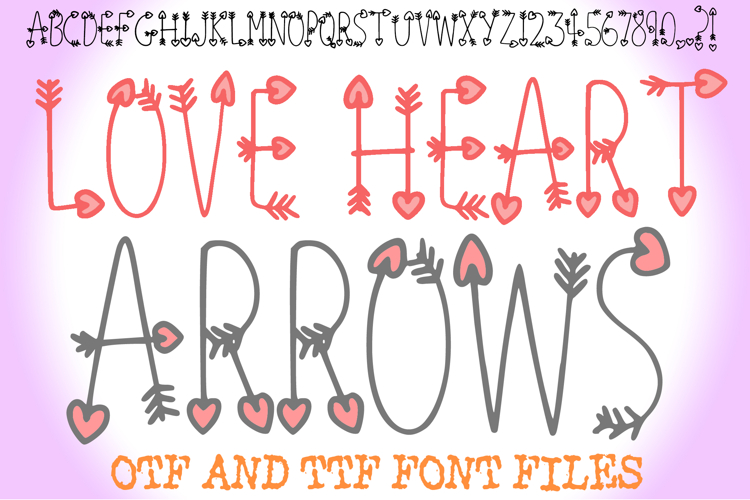
Take aim at the perfect design with Love Heart Arrows Font, a whimsical and romantic typeface that brings the magic of Cupid to your fingertips! This handmade display font features elegant, thin-line uppercase characters uniquely integrated with hand-drawn arrows and hearts. Each letter is thoughtfully crafted with arrow fletching and heart-shaped arrowheads acting as terminals and crossbars, creating a playful yet sophisticated look for the season of love.
This font captures a sweet, artisanal aesthetic that is perfect for personalized gifts and holiday decor. Whether you are creating "Be Mine" Valentine's cards, wedding invitations, or classroom bulletin boards, Love Heart Arrows adds a custom, hand-drawn touch that stands out.